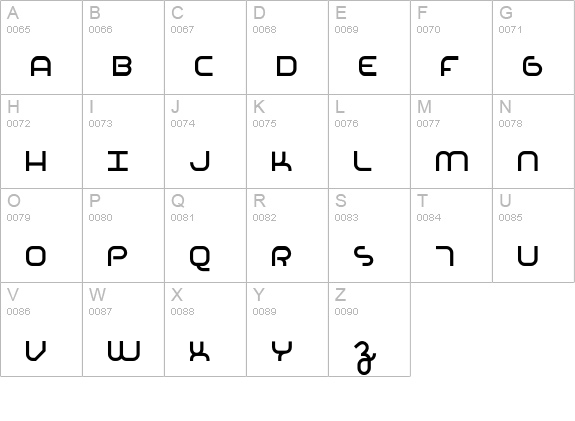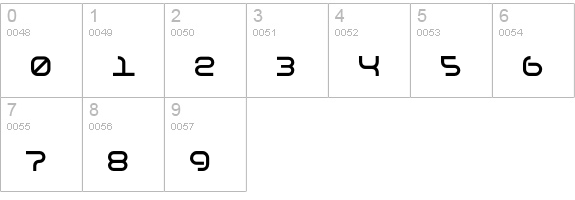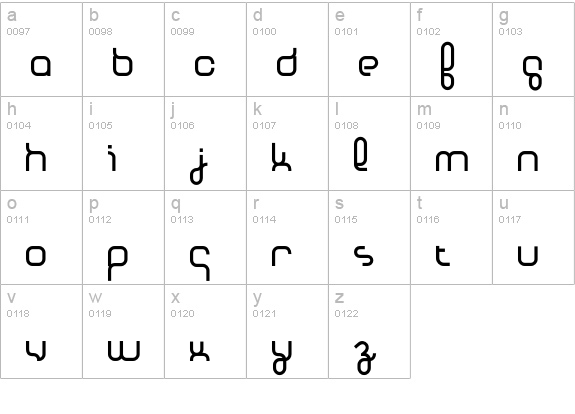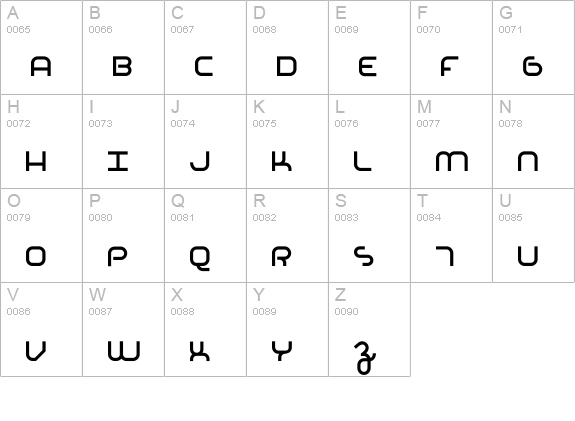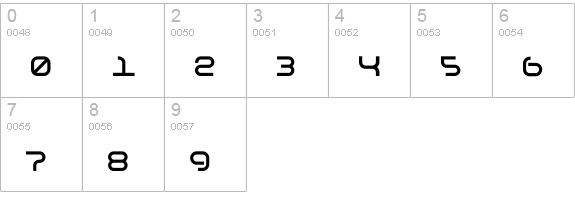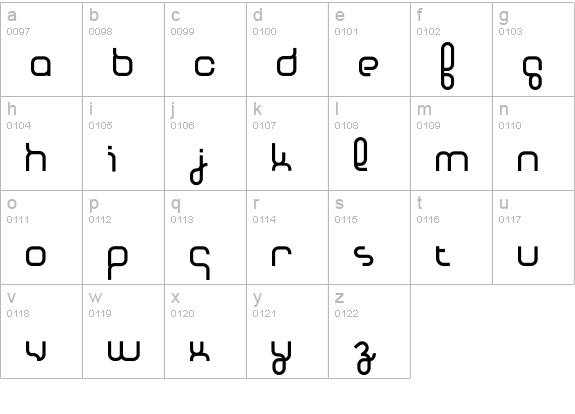
Basis-Medium is a balanced, medium-weight variant in the Basis typeface family \xE2\x80\x94 well suited to sub-headlines, navigation, and balanced editorial work.
Basis-Medium font is a versatile and modern typeface that strikes the perfect balance between professionalism and creativity. With its clean lines and subtle curves, this font exudes a sense of sophistication and elegance. Whether you're designing a sleek logo, crafting a stylish poster, or working on a minimalist website, Basis-Medium font is sure to elevate your project to the next level. The best part? Basis-Medium font is completely free to download at FontsMarket.com. This means you can access this high-quality typeface without breaking the bank, making it the perfect choice for designers on a budget. Don't miss out on the opportunity to enhance your design projects with the timeless appeal of Basis-Medium font. Download it today and start creating stunning visuals that will leave a lasting impression.